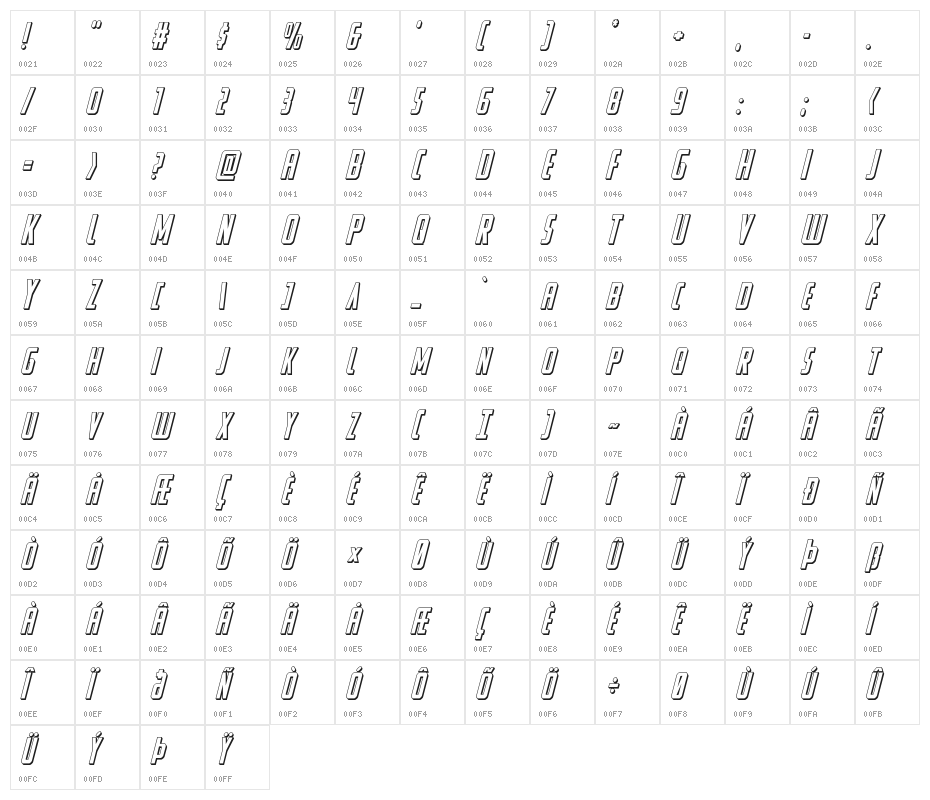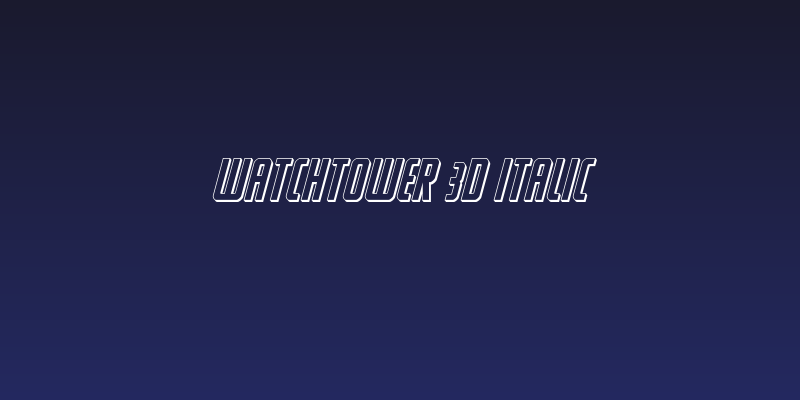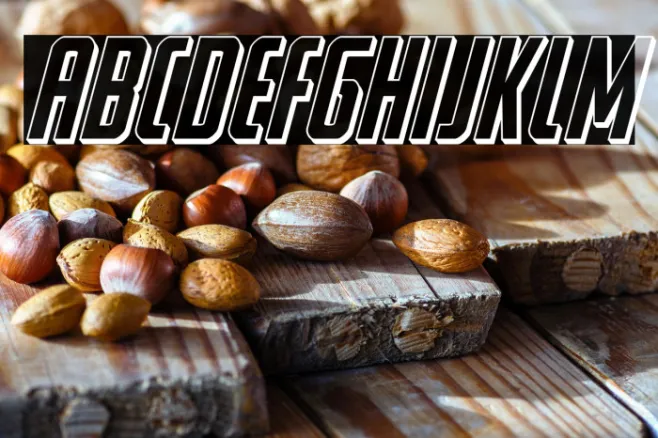
Watchtower 3D Italic Font
Watchtower 3D Italic Description
This font features a bold, three-dimensional appearance with a distinct italic slant, giving it a dynamic and modern look. The characters are outlined, creating a sense of depth and movement. The uppercase and lowercase letters maintain a consistent style, with sharp angles and clean lines. The numerals and special characters follow the same design principles, ensuring uniformity across all glyphs. This font is particularly eye-catching, making it suitable for attention-grabbing headlines or titles.